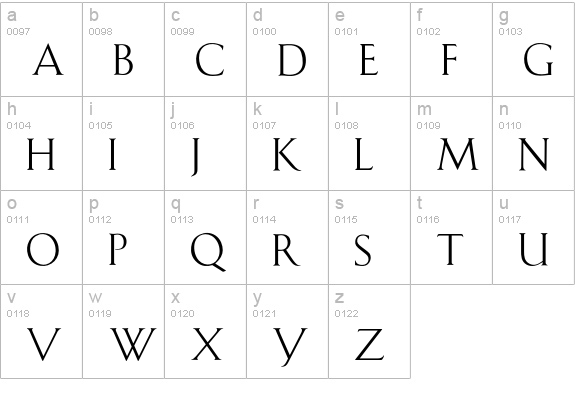
LaurinText Font Details
Introducing LaurinText, a stunningly versatile font that effortlessly combines elegance and readability. With its clean lines and timeless aesthetic, LaurinText is the perfect choice for a wide range of design projects, from sophisticated branding to stylish editorial layouts. This font's graceful curves and meticulously crafted letterforms make it a true standout in the typography world. Its legibility remains unparalleled, ensuring that your message will always be clear and impactful. Whether used for body text or headlines, LaurinText is guaranteed to captivate and engage readers. But what truly sets LaurinText apart is its availability. This exceptional font is not only visually striking, but it is also free to download at FontsMarket.com. Yes, you heard that right – freely available to all designers and creatives looking to elevate their projects. Say goodbye to costly font licenses and hello to the freedom of expression with LaurinText. By making LaurinText accessible to everyone, the creators have empowered designers to bring their visions to life without limitations. This font's versatility and affordability make it the go-to choice for professionals and amateurs alike, ensuring that creativity knows no bounds. With a wide range of weights and styles, LaurinText offers unparalleled flexibility. From delicate thin to bold and powerful, this font effortlessly adapts to any design concept. Its extensive character set includes a variety of glyphs, ensuring compatibility with multiple languages and typographic needs. Whether you're designing a logo, a magazine, a website, or anything in between, LaurinText is the perfect companion. Its timeless elegance and remarkable versatility will elevate your creations to new heights, leaving a lasting impression on your audience. So why wait? Download LaurinText for free at FontsMarket.com and unlock the potential to create stunning designs that truly stand out. Experience the freedom of choice, the freedom of expression, and the freedom to create with LaurinText – the font that sets your creativity free.